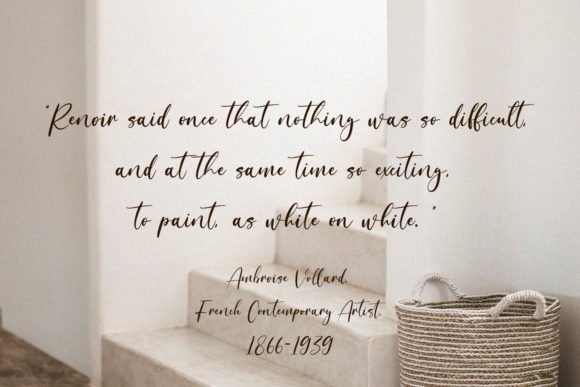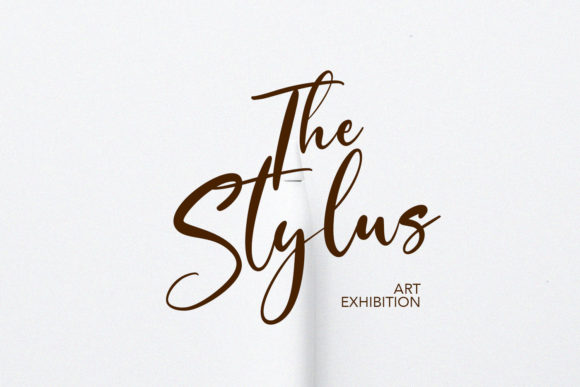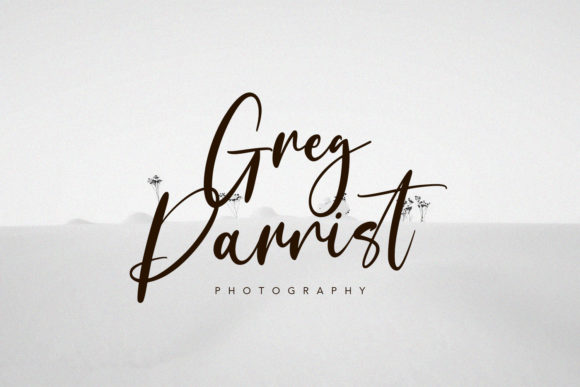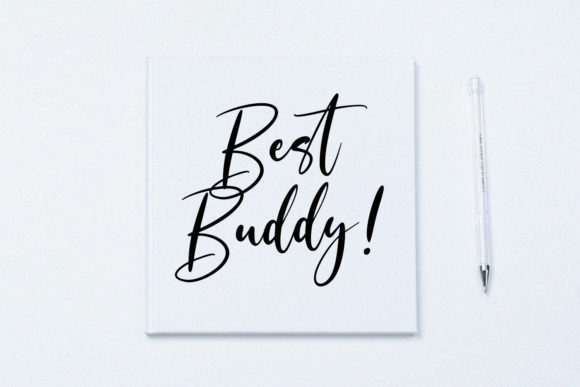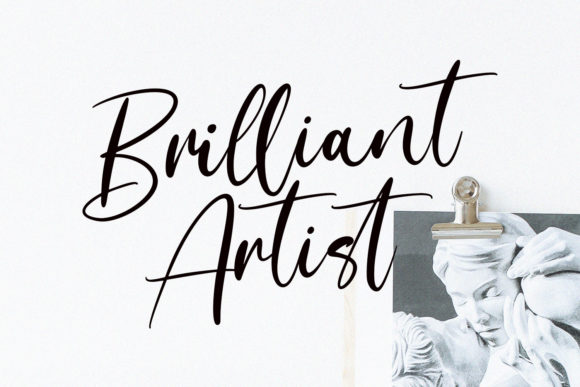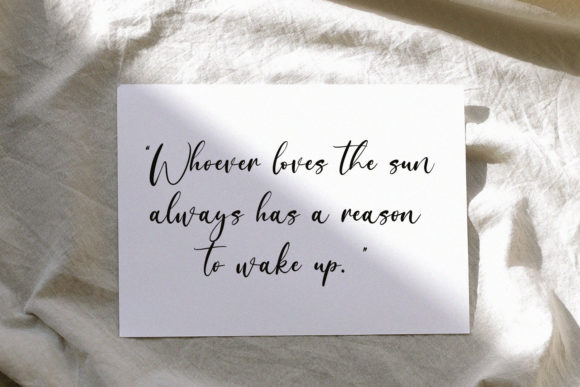
Dreamotions Font: Elevate Your Designs with Elegance and Sophistication
Are you a designer or crafter looking for a font that exudes elegance and sophistication? Look no further than Dreamotions Font, a stunning script font that is sure to take your designs to the next level. With its thin lettered, delicate, and beautiful style, Dreamotions Font is the perfect choice for those who want to add a touch of luxury and refinement to their work.
What Makes Dreamotions Font So Special?
Dreamotions Font is a PUA (Private Use Area) encoded font, which means that it offers a wide range of glyphs and swashes that can be accessed with ease. This makes it incredibly versatile and flexible, allowing you to experiment with different styles and effects to create truly unique and spectacular designs. Whether you’re working on a branding project, a wedding invitation, or a craft project, Dreamotions Font is sure to impress.
Fall in Love with its Fashionable Style
One of the standout features of Dreamotions Font is its fashionable style. The font’s thin letters and delicate lines give it a light and airy feel, making it perfect for designs that require a touch of elegance and sophistication. The swashes and glyphs add an extra layer of flair, allowing you to add a personal touch to your designs and make them truly stand out. Whether you’re creating a logo, a poster, or a social media graphic, Dreamotions Font is sure to make your design look stylish and refined.
Dreamotions Font is a dream come true for designers and crafters who want to create beautiful and professional-looking designs without spending hours agonizing over the perfect font. The font’s ease of use and versatility make it perfect for a wide range of projects, from commercial designs to personal craft projects. Whether you’re a seasoned designer or a beginner crafter, Dreamotions Font is sure to become a go-to font in your collection.
Use Dreamotions Font to Create Spectacular Designs
So, what can you create with Dreamotions Font? The possibilities are endless! Here are a few ideas to get you started:
- Wedding Invitations: Create beautiful and elegant wedding invitations that set the tone for the big day.
- Branding Projects: Use Dreamotions Font to create a logo or brand identity that exudes sophistication and elegance.
- Craft Projects: Add a touch of luxury to your craft projects, such as handmade cards, gift tags, and scrapbooking pages.
- Social Media Graphics: Create stunning social media graphics that are sure to grab attention.
- Posters and Flyers: Use Dreamotions Font to create eye-catching posters and flyers that showcase your message in style.
Tips for Using Dreamotions Font
Here are a few tips for getting the most out of Dreamotions Font:
- Experiment with different swashes and glyphs: Don’t be afraid to try out different swashes and glyphs to add a personal touch to your designs.
- Pair it with other fonts: Dreamotions Font pairs beautifully with other fonts, so don’t be afraid to experiment with different combinations.
- Use it for headlines and titles: Dreamotions Font is perfect for headlines and titles, where its elegant style can really shine.
In conclusion, Dreamotions Font is a beautiful and elegant script font that is sure to elevate your designs to the next level. With its thin lettered, delicate, and beautiful style, PUA encoding, and fashionable swashes and glyphs, it’s the perfect choice for designers and crafters who want to add a touch of luxury and sophistication to their work. So why wait? Fall in love with Dreamotions Font and start creating spectacular designs today!